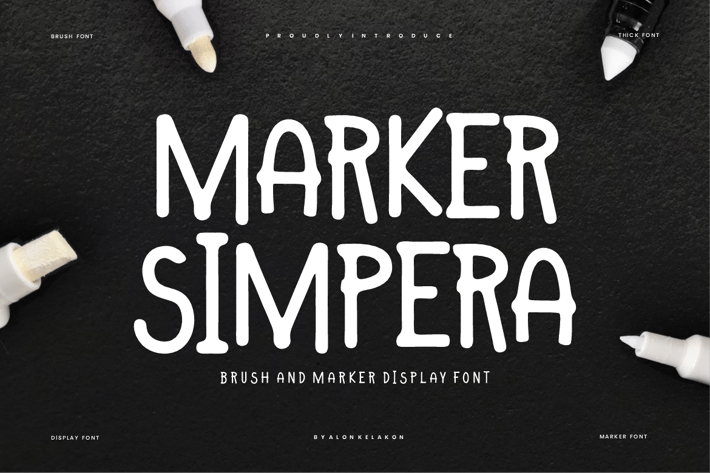
Marker Simpera - Brush Display Font
Marker Simpera Font is unique . Ready to use for your design like labeling, movie sceen, poster, movie title, gigs, album covers, logos, and much more.